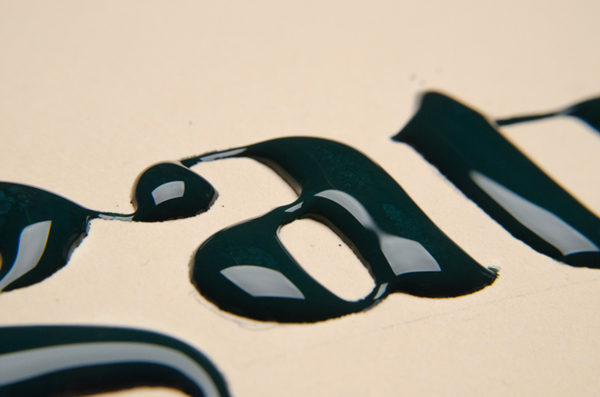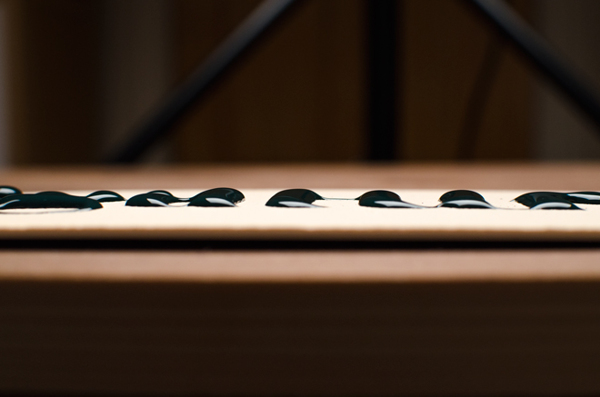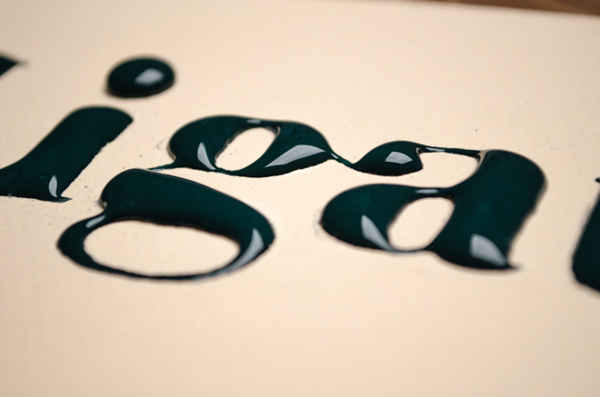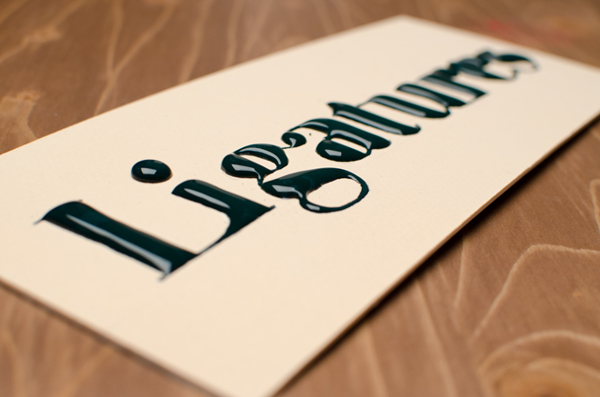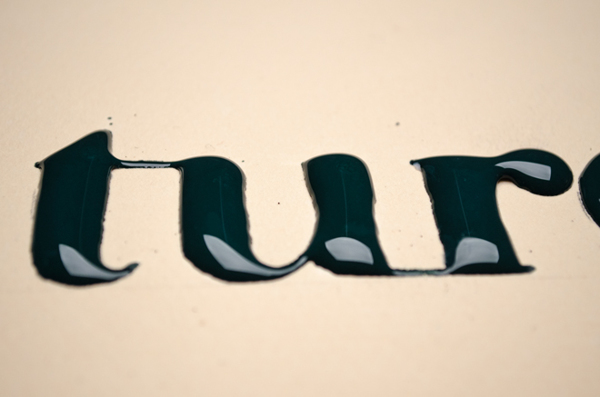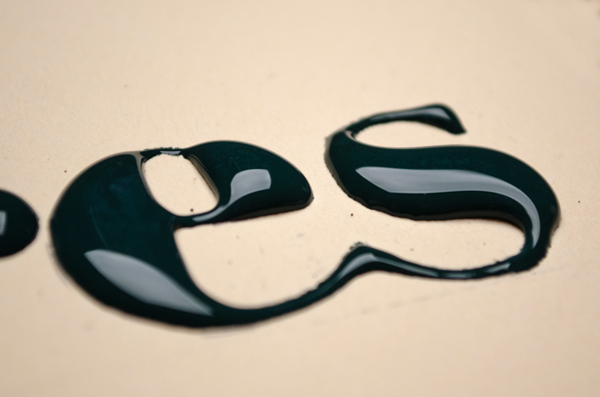
Exquisite liquid Bodoni
Whoever came accross this succulent work of Hide Obara can agree to the fact that this composition of Bodoni letters is hauntingly beautiful. We love how the light is climbing up the curvy letters and how amazingly the ink is reflected on the camera. Although the shoots are mostly amateur, the perfectly zoomed images captivate our attention for a quite long period of time... not to mention that we can easily imagine chocolate instead of ink. (chocolate replaces anything liquid in our imagination). Check out more of Hide's work here.